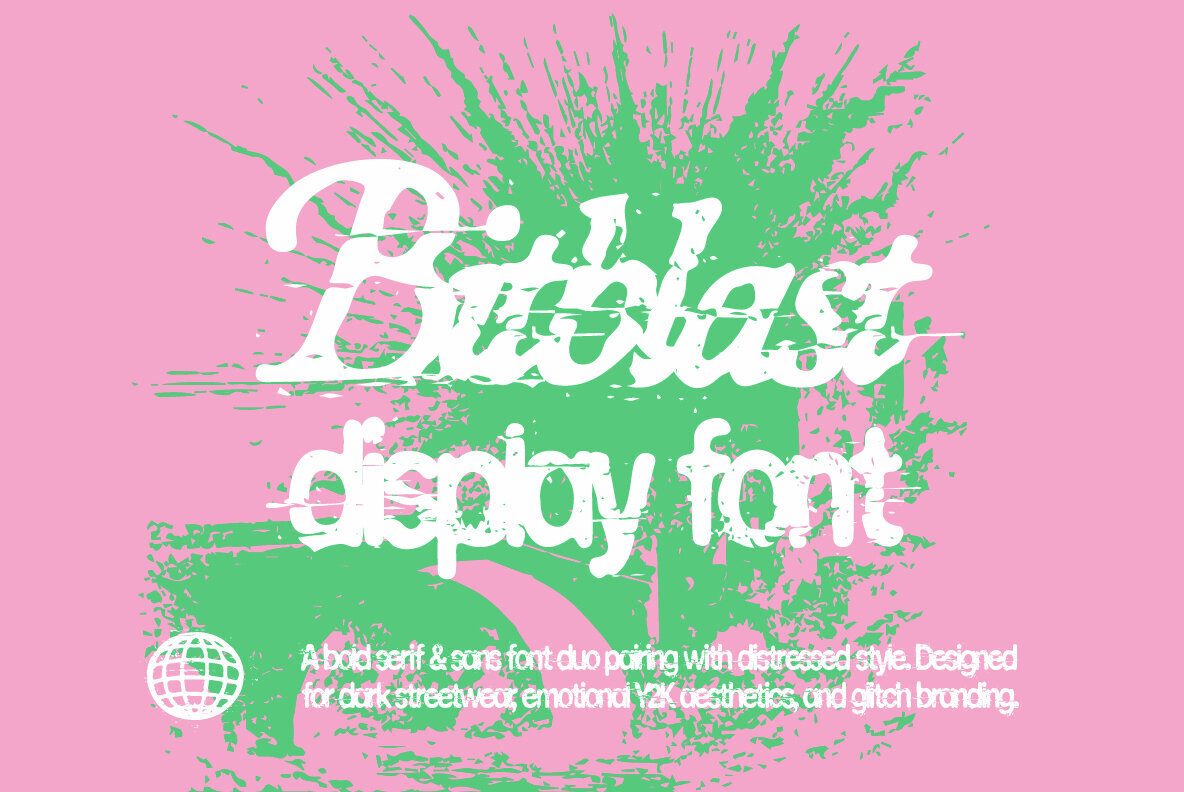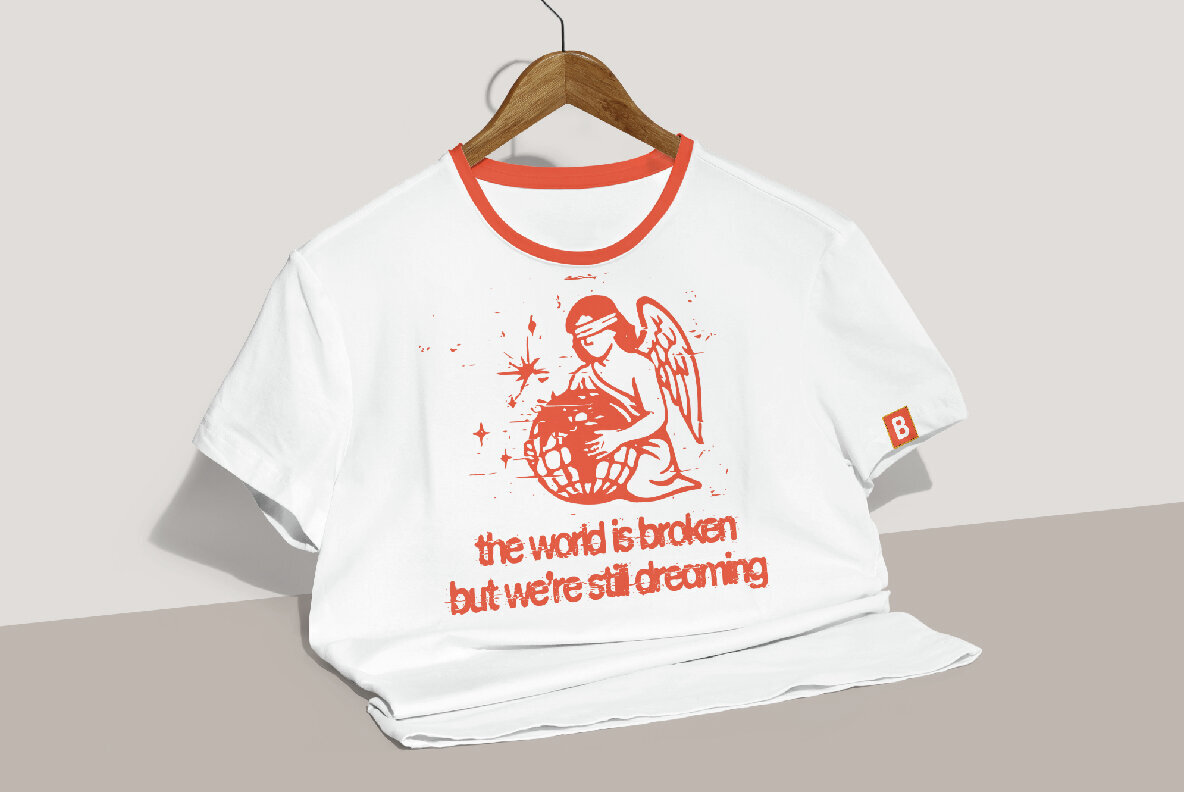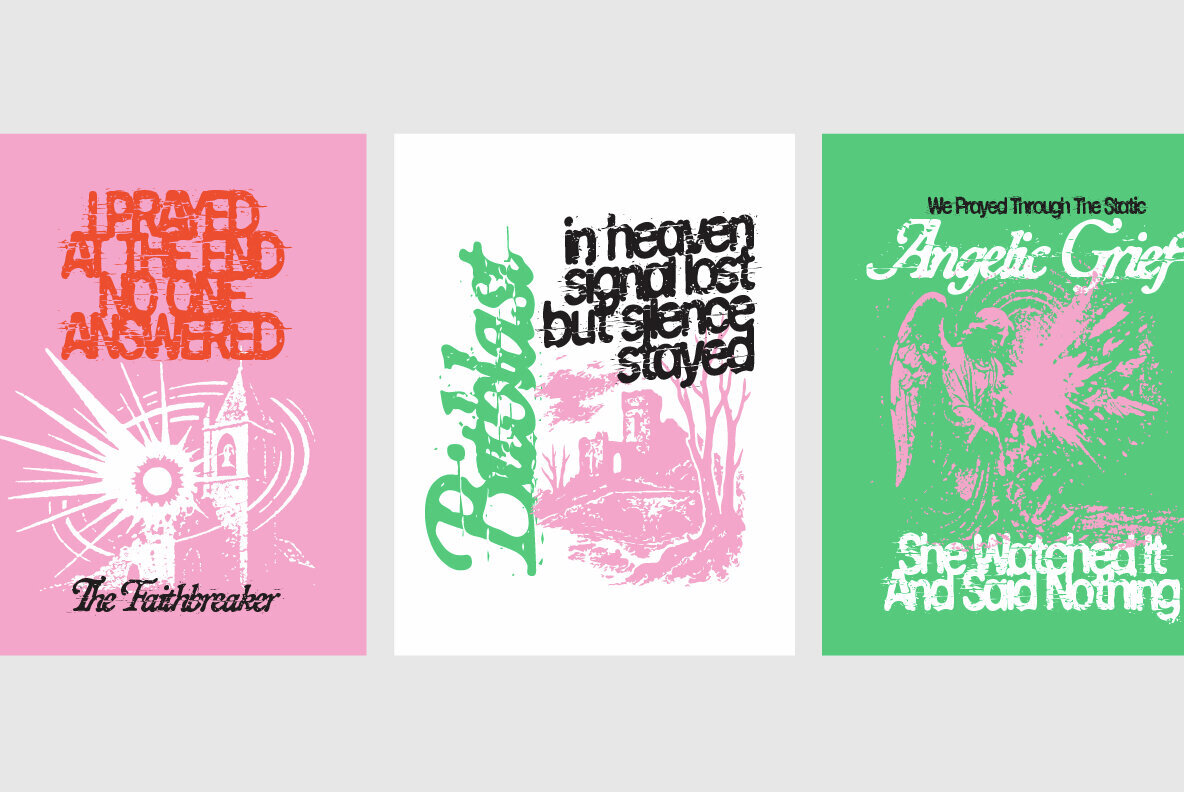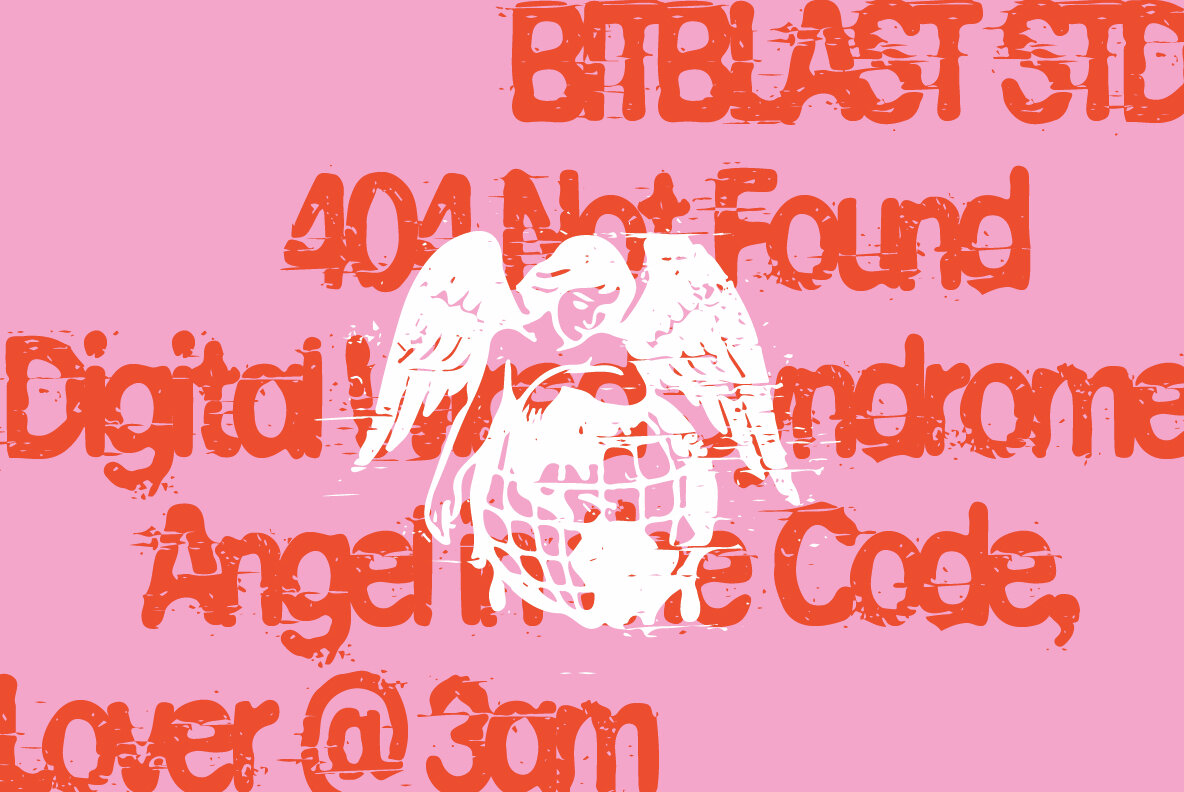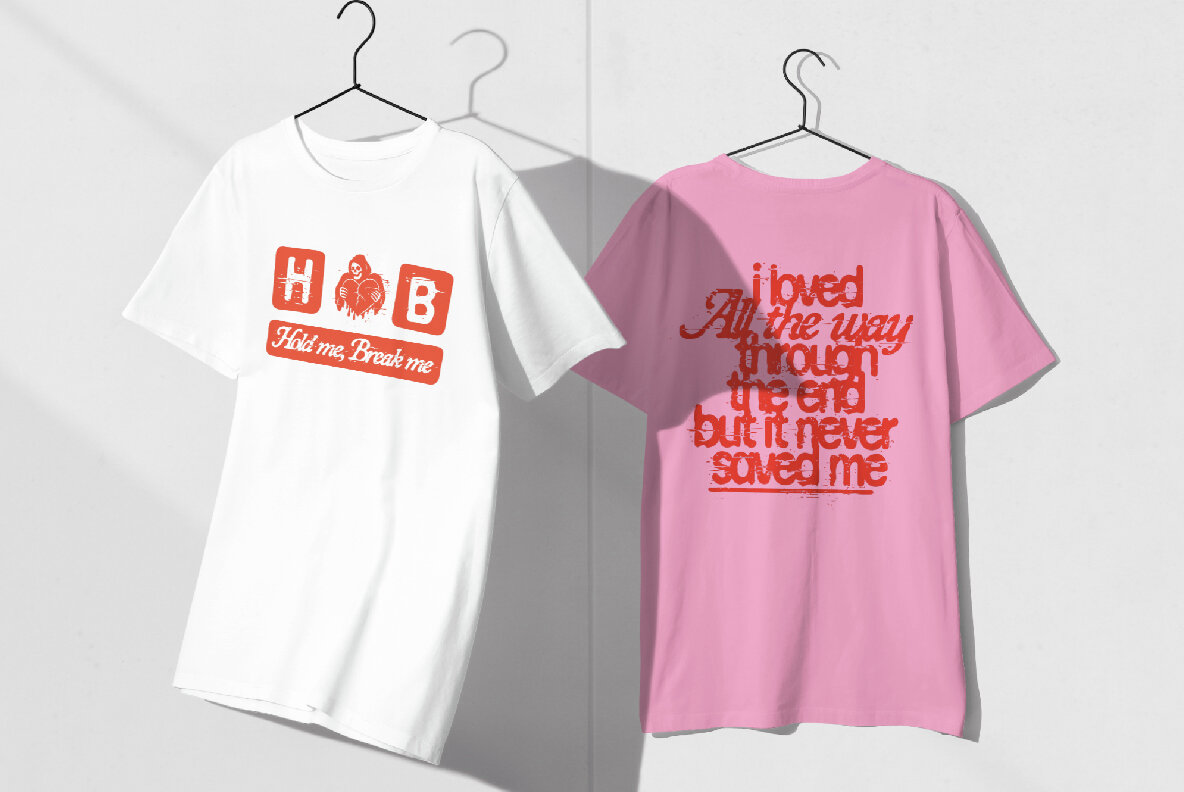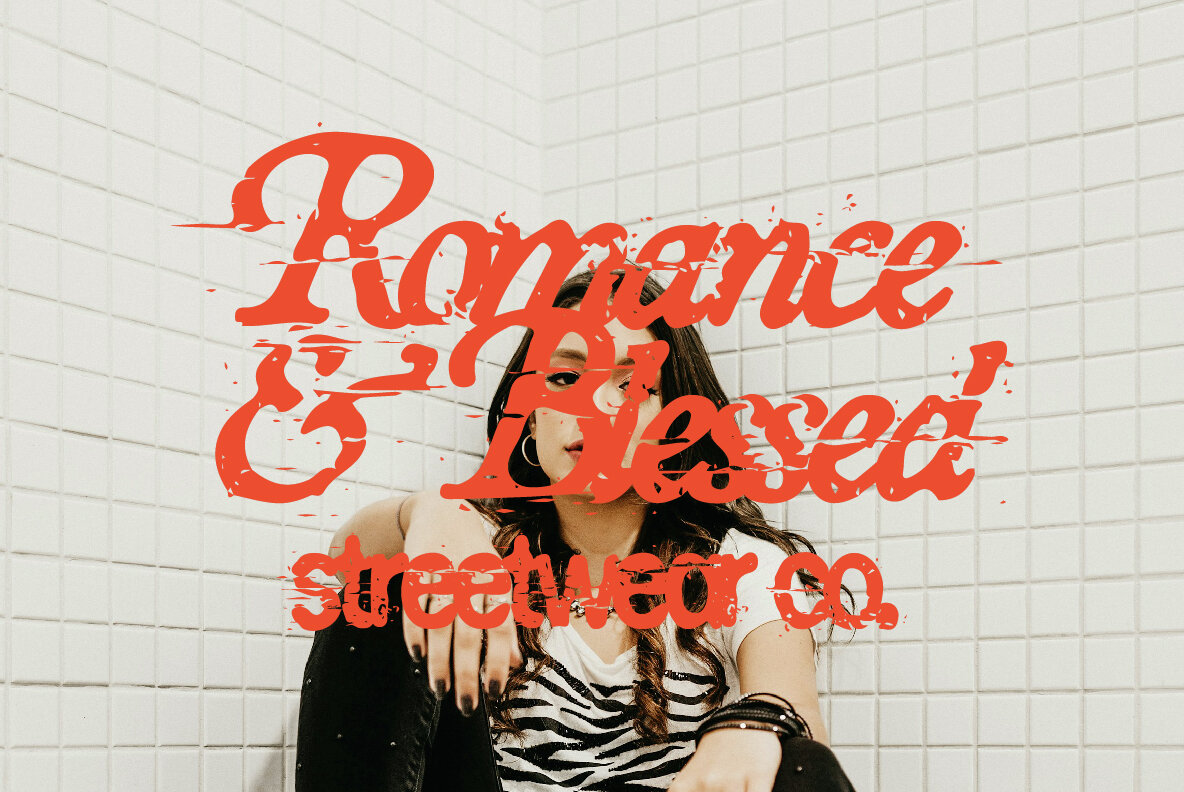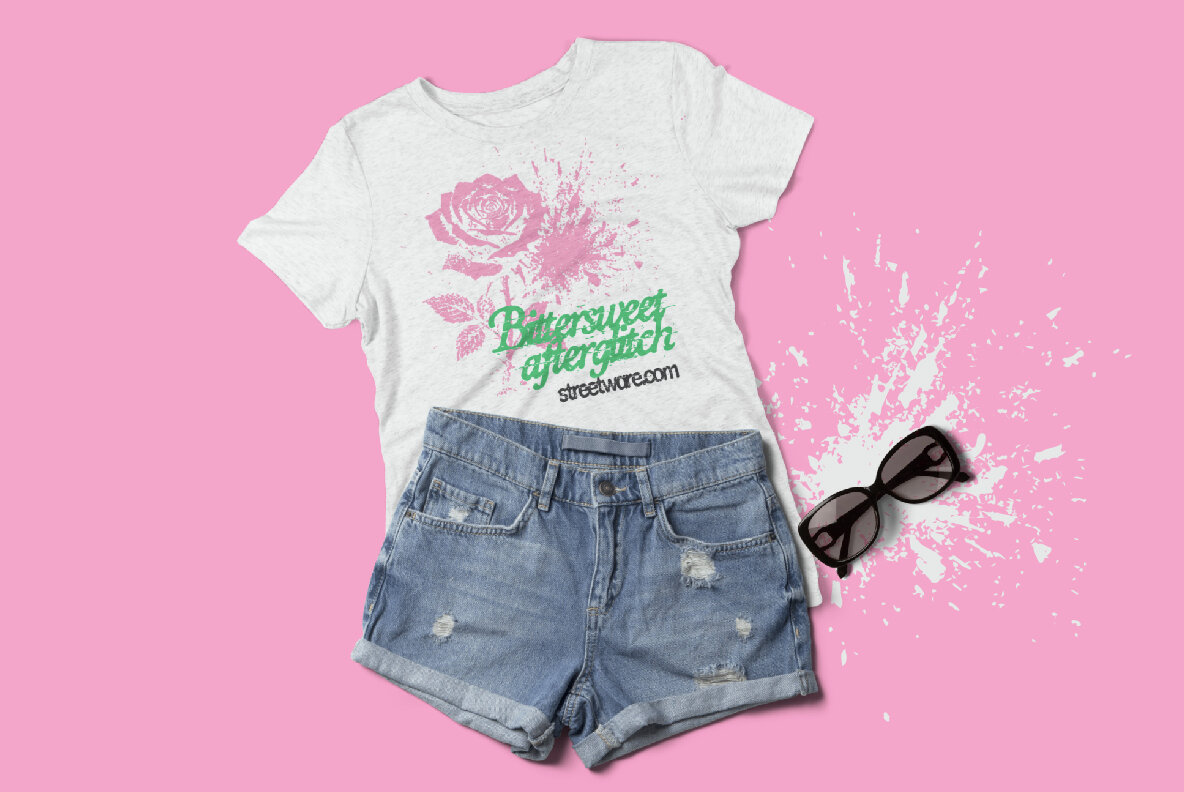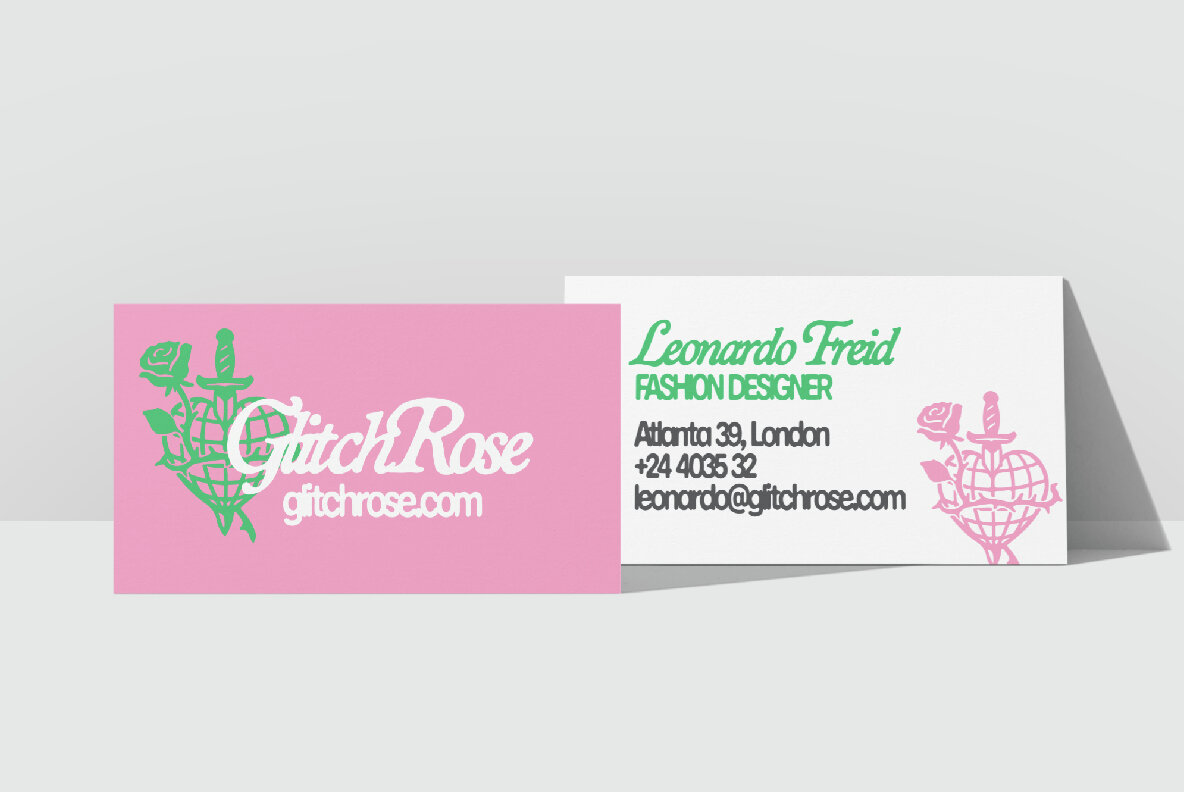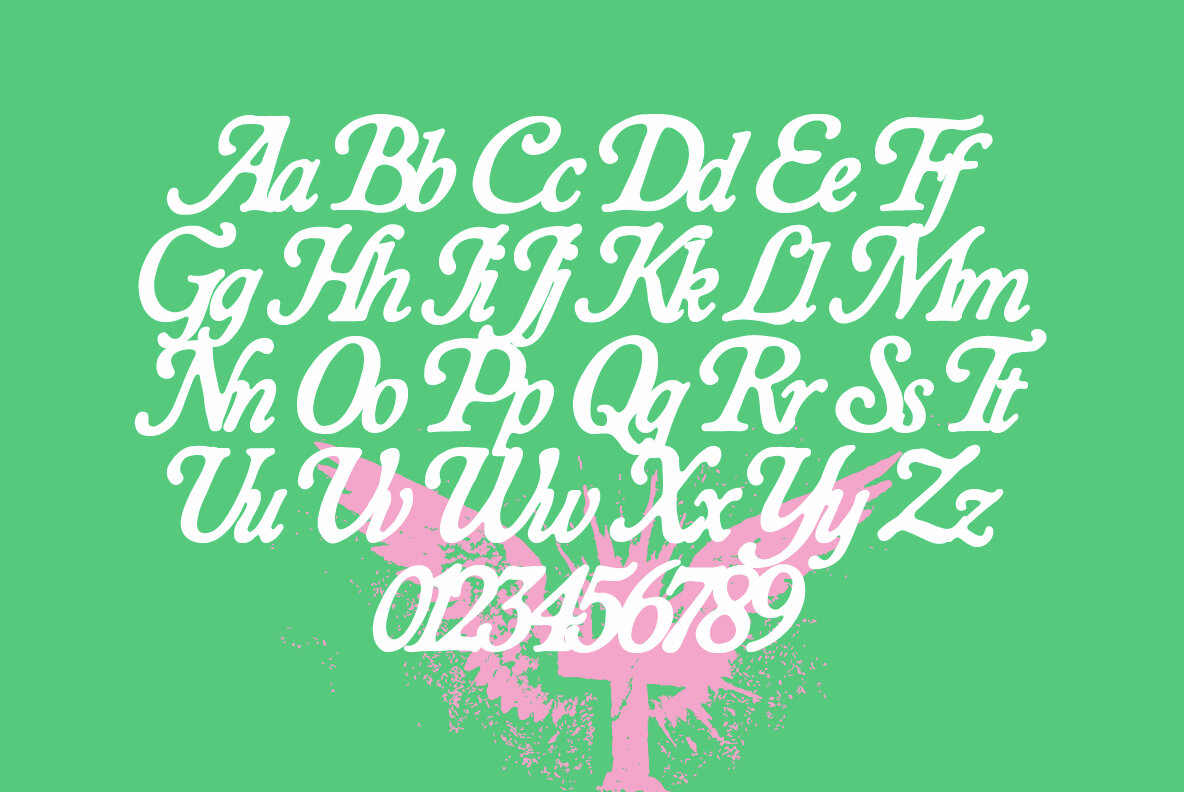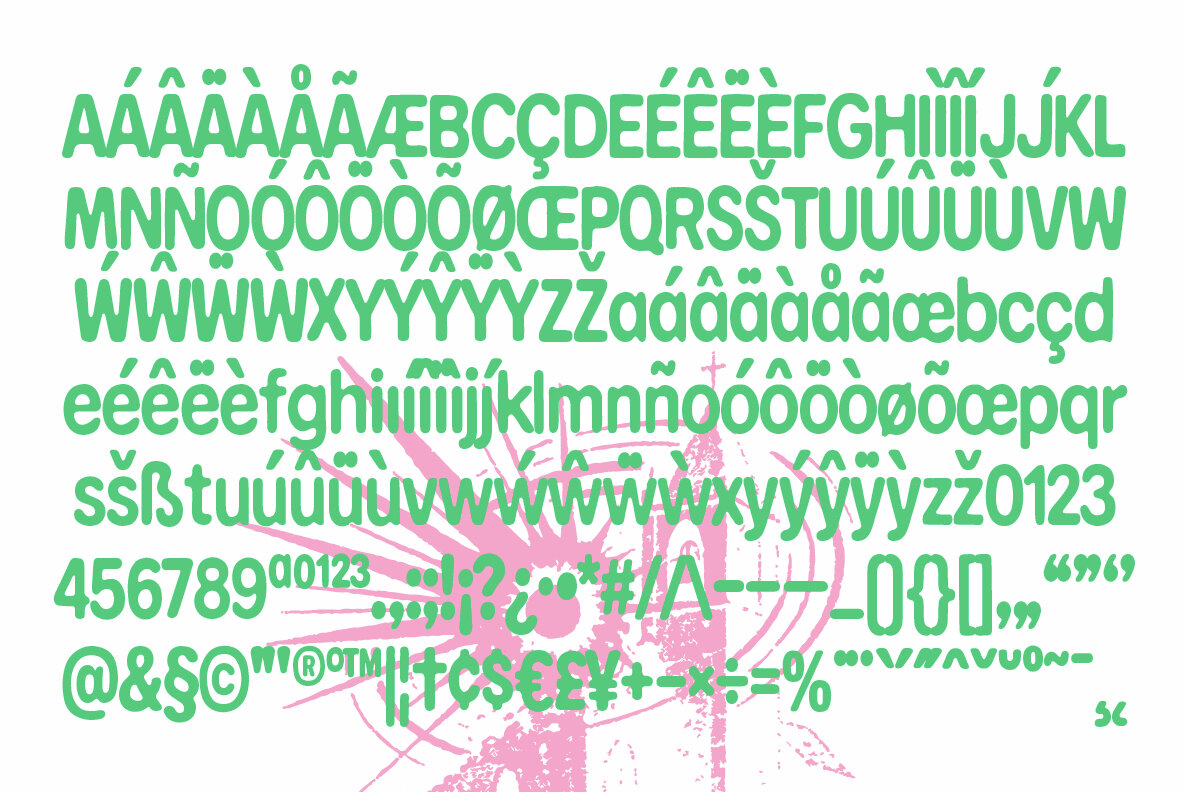
Bitblast Font
Bitblast Serif Regular
Bitblast Sans Regular
Bitblast Sans Textured
Bitblast Serif Textured
Bitblast is a dynamic serif and sans font duo, seamlessly combining a raw, distressed style with contemporary aesthetics. Perfectly tailored for dark streetwear, emotional Y2K themes, and glitch-inspired branding, this typeface injects a potent, high-impact energy into visual designs. The serif offers sharp gothic elegance, while the condensed sans provides a futuristic, rebellious touch, ideal for creating standout logos, apparel, posters, and bold visual identities.Bitblast: A Bold Statement in Streetwear and Branding